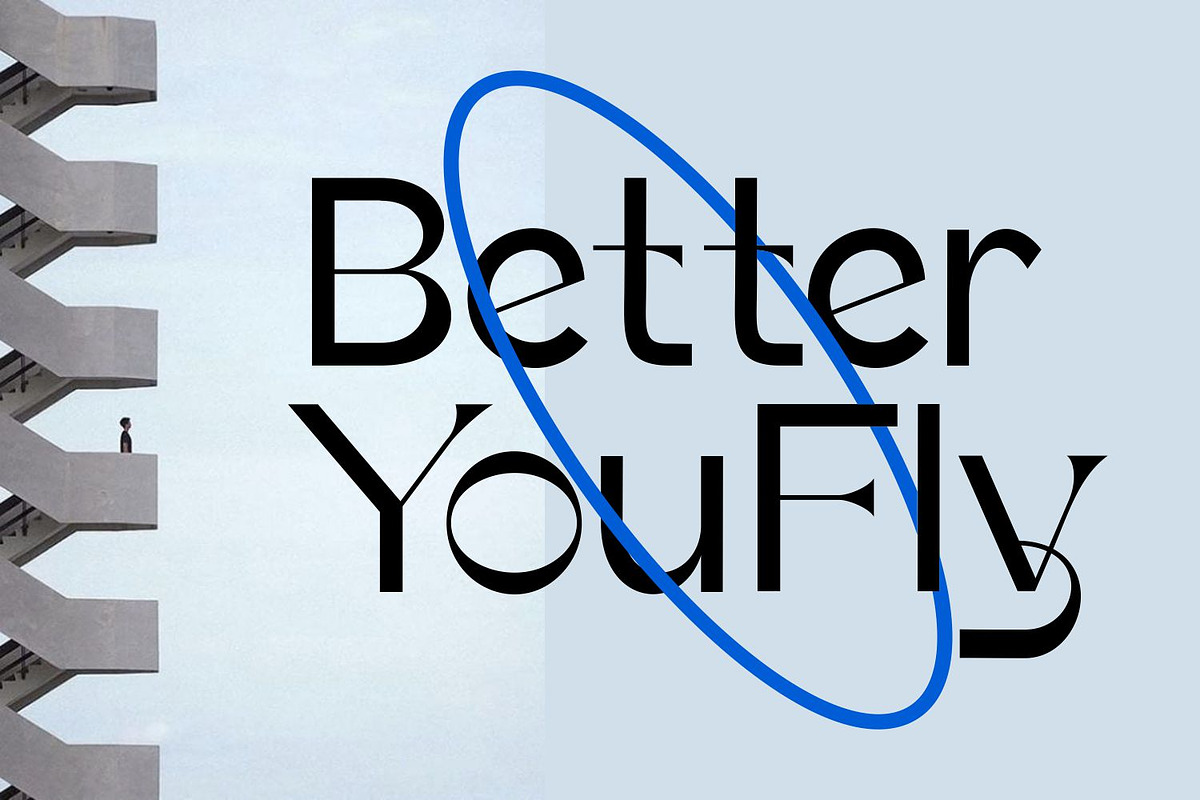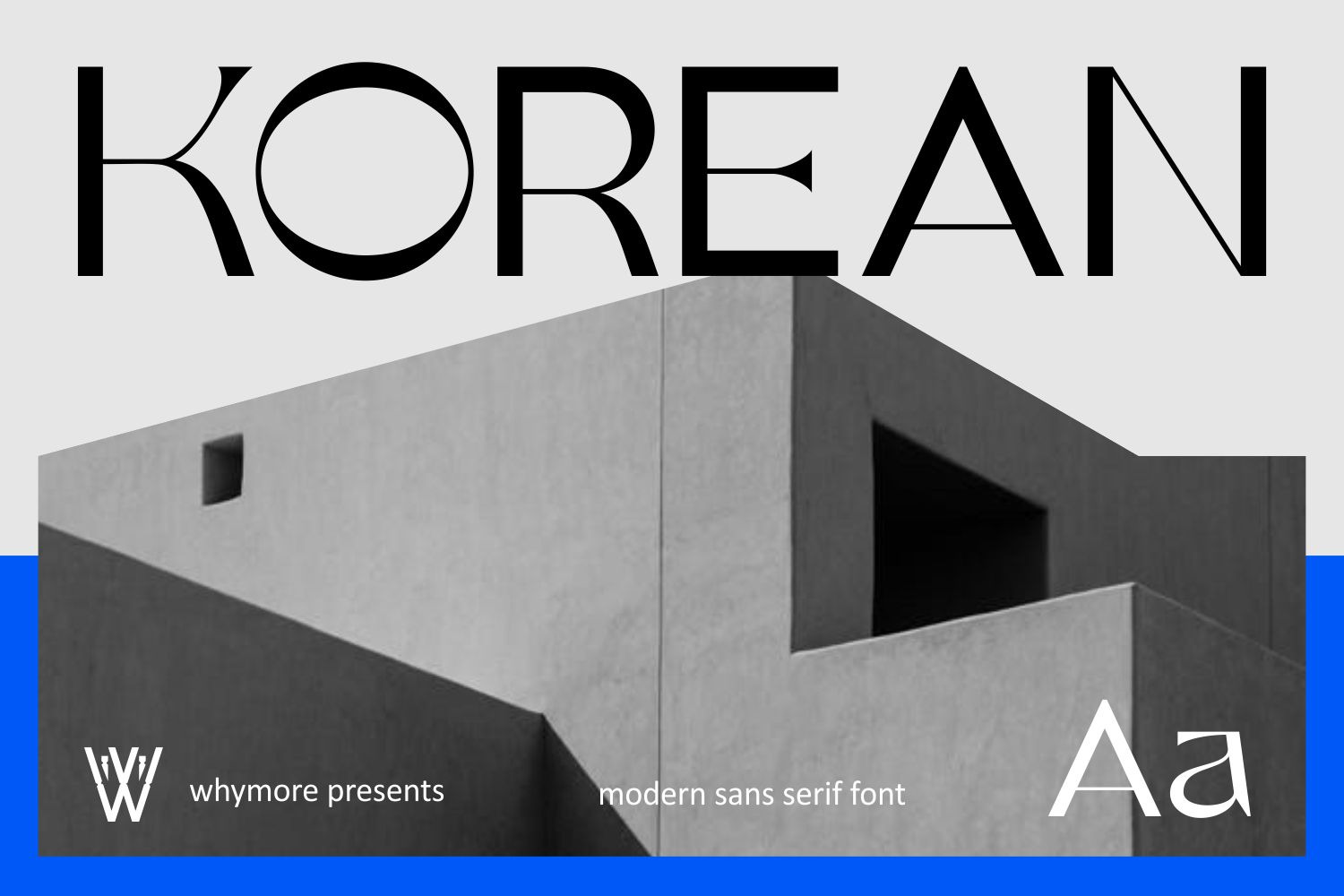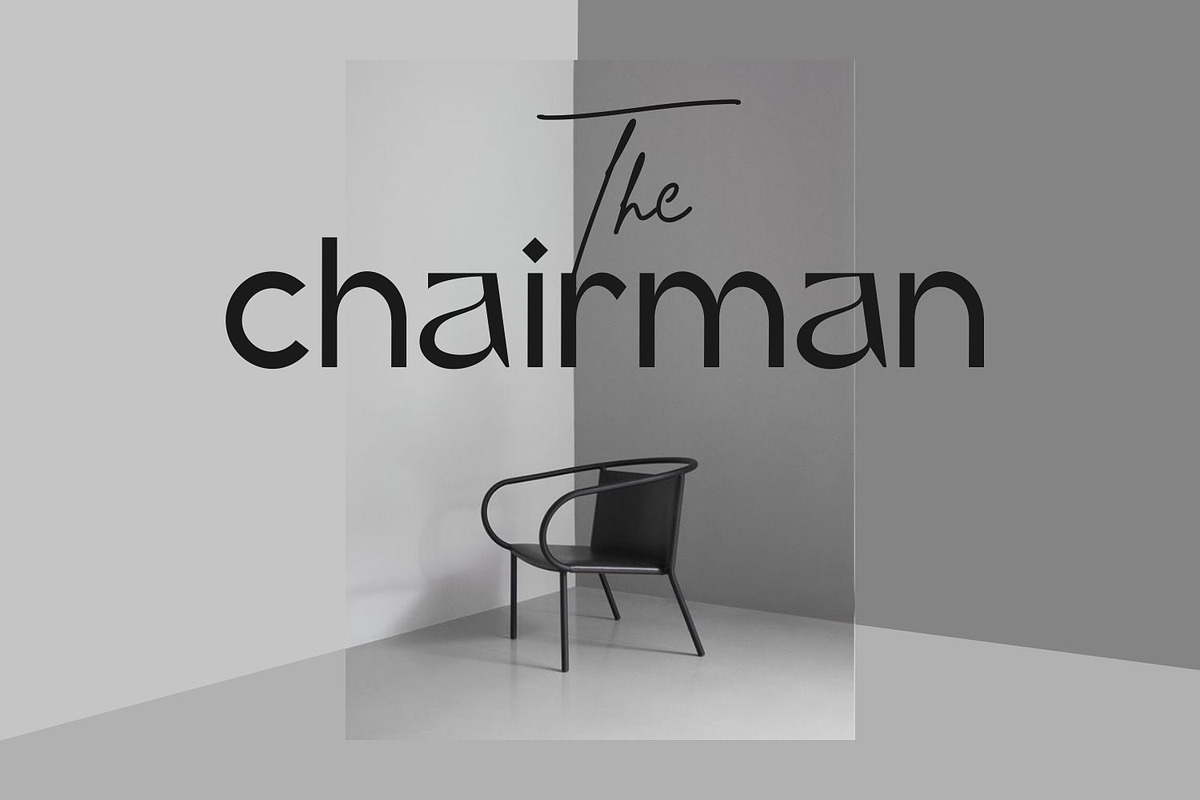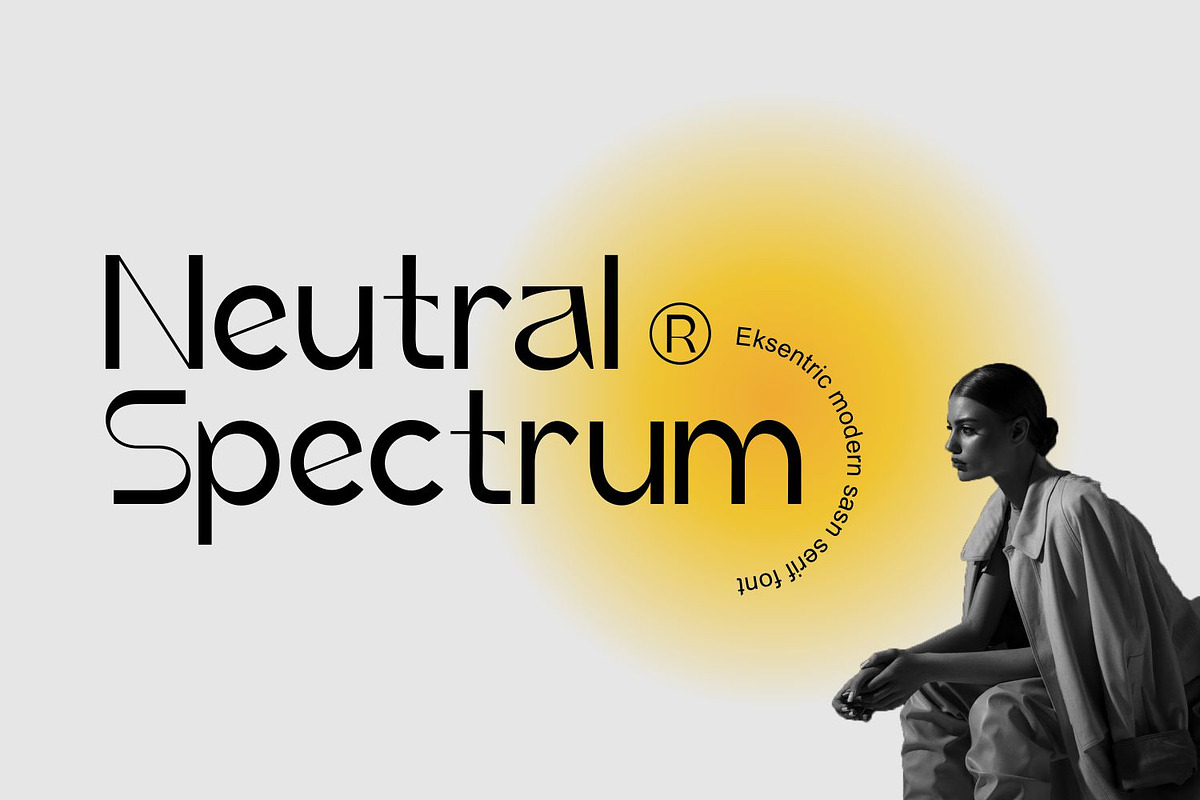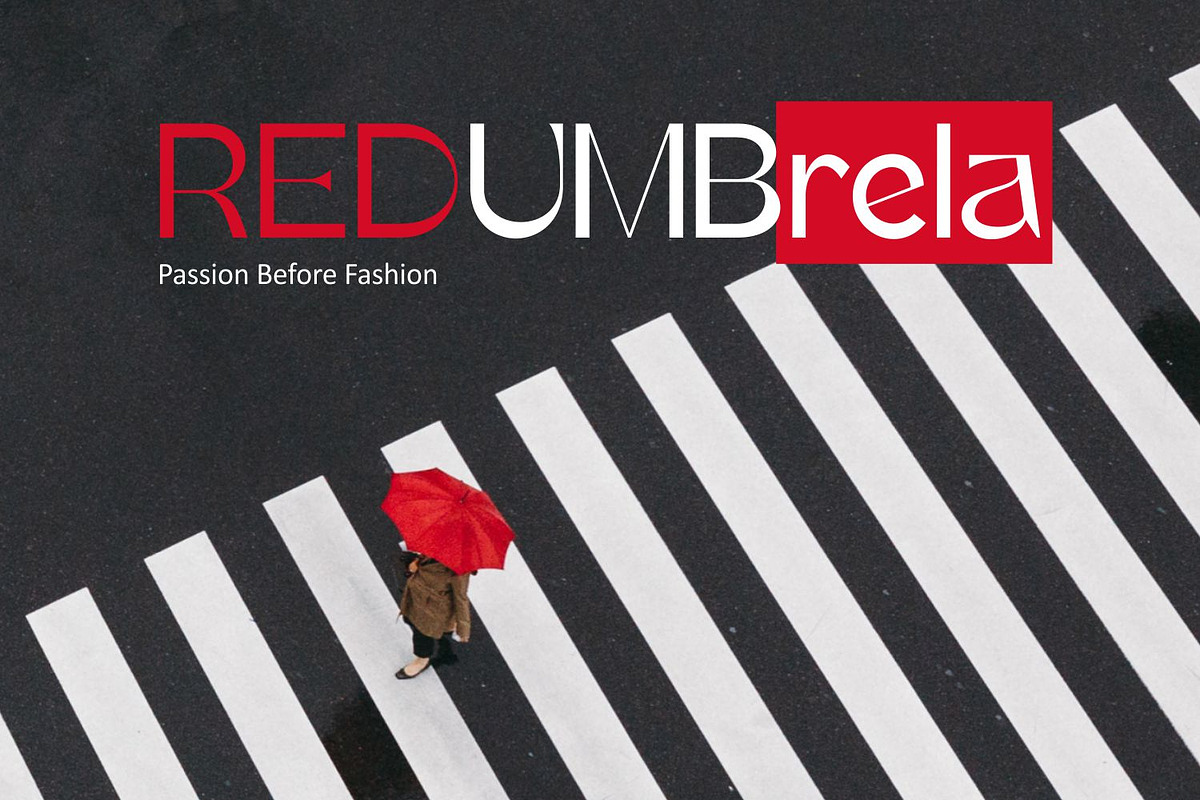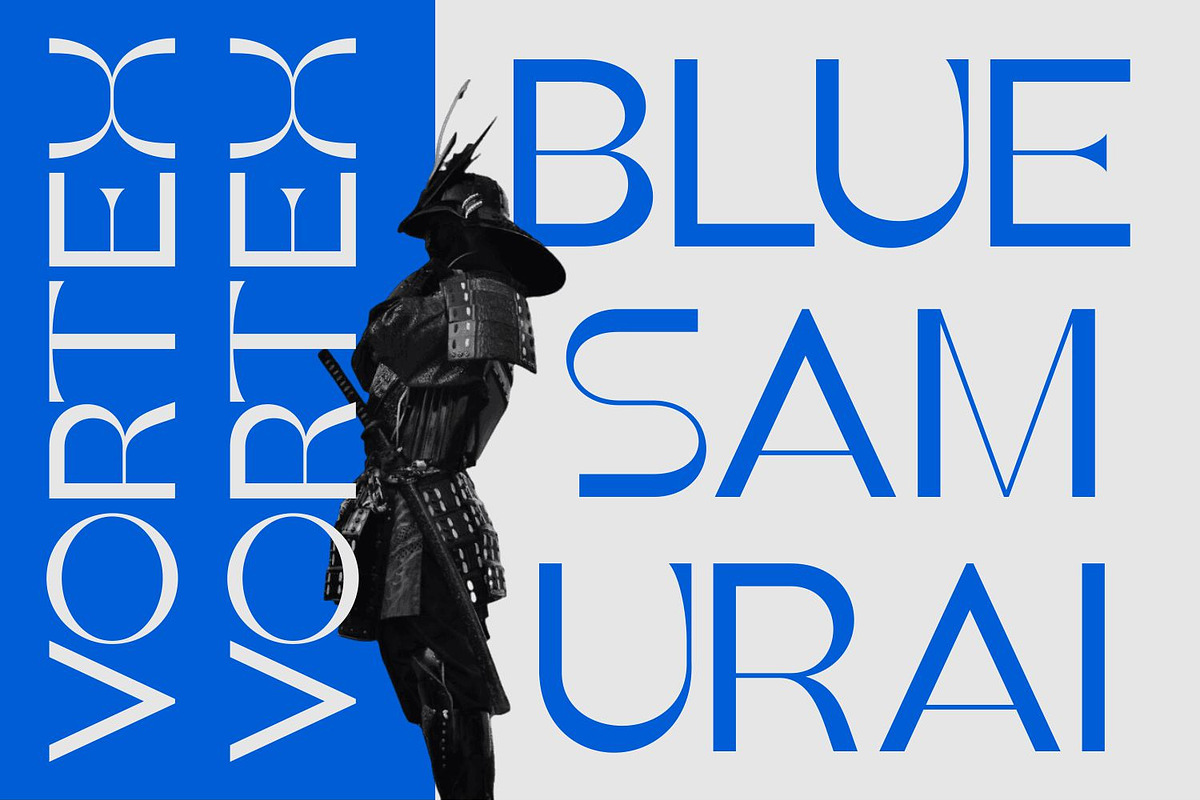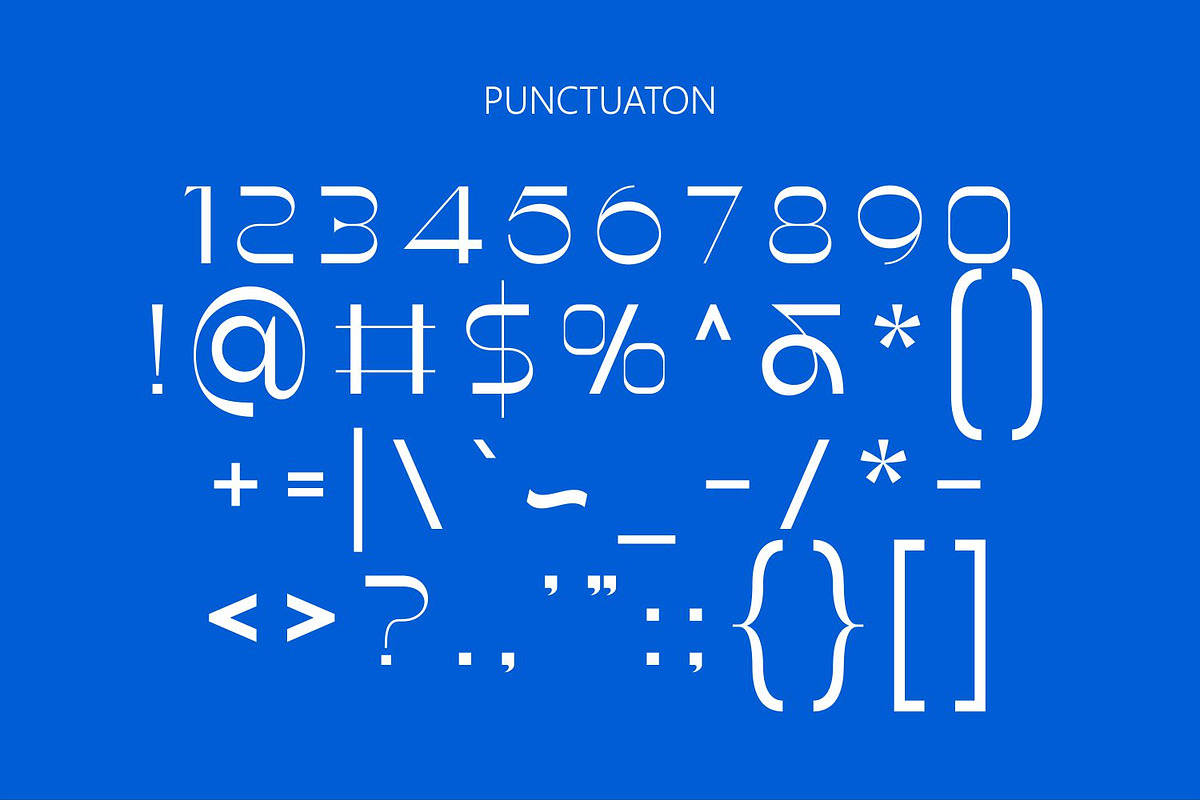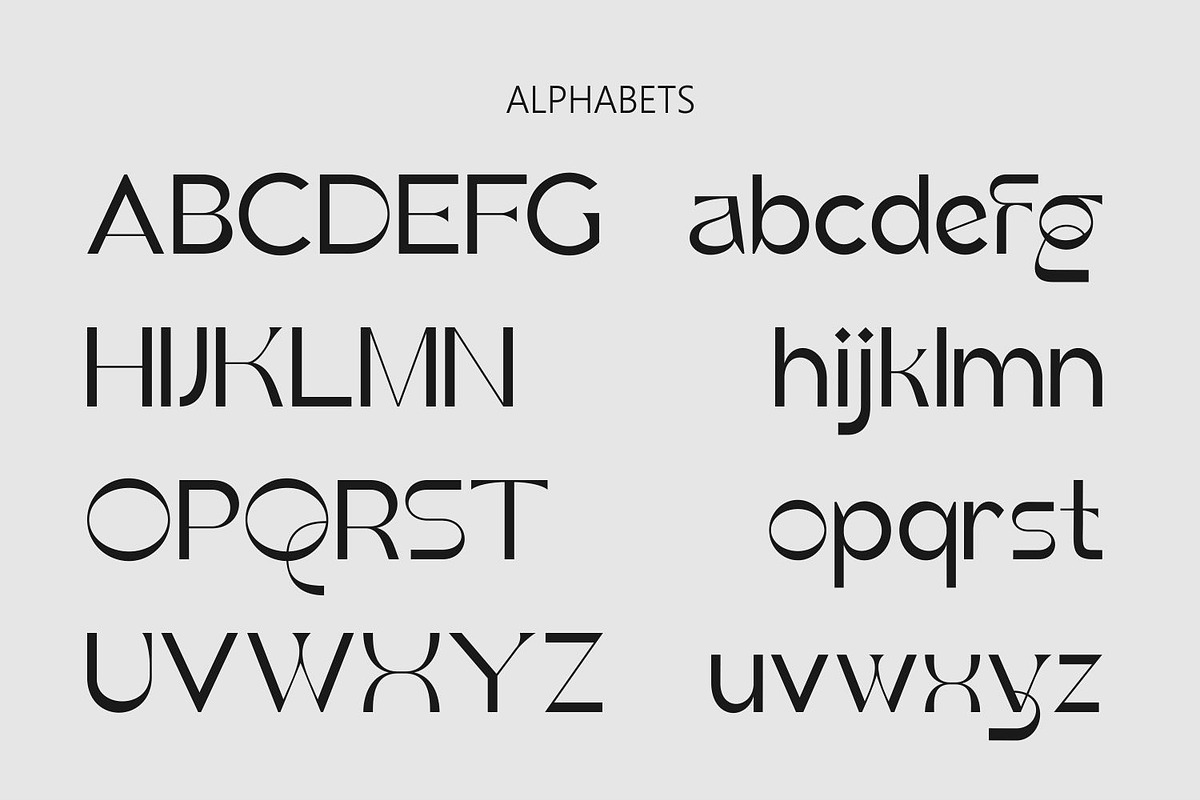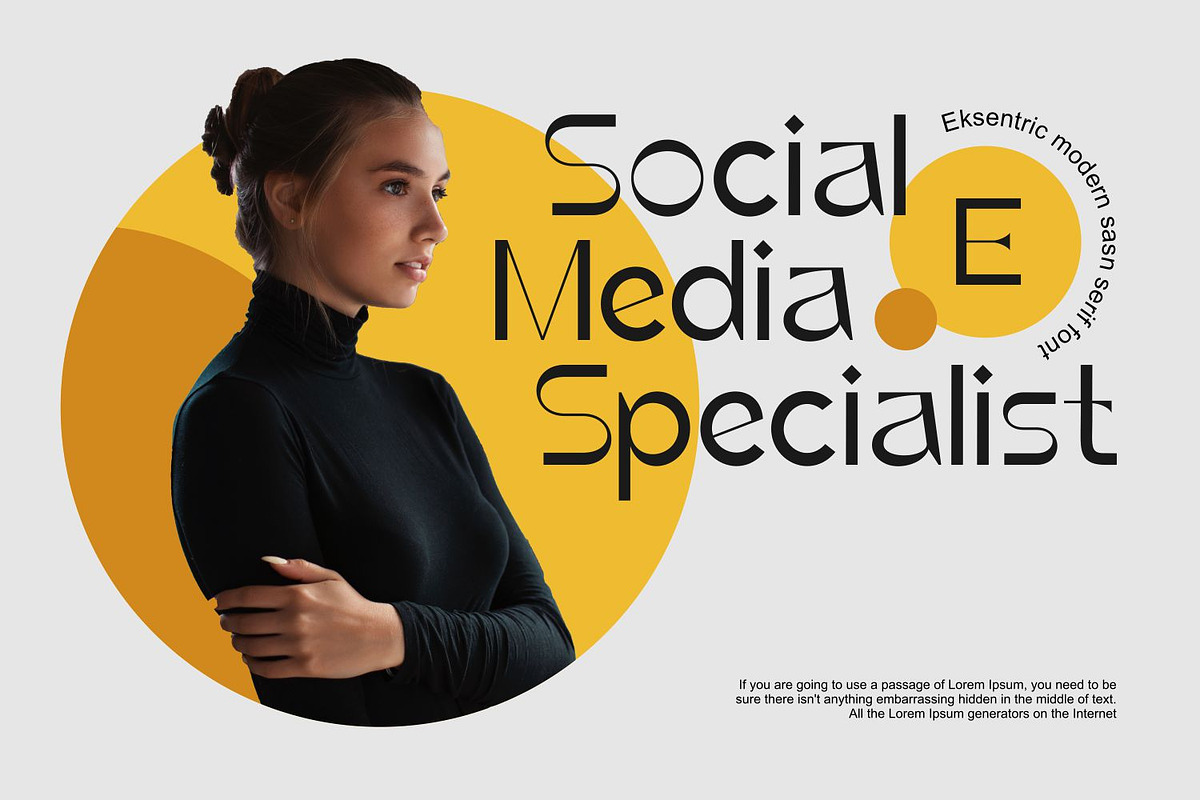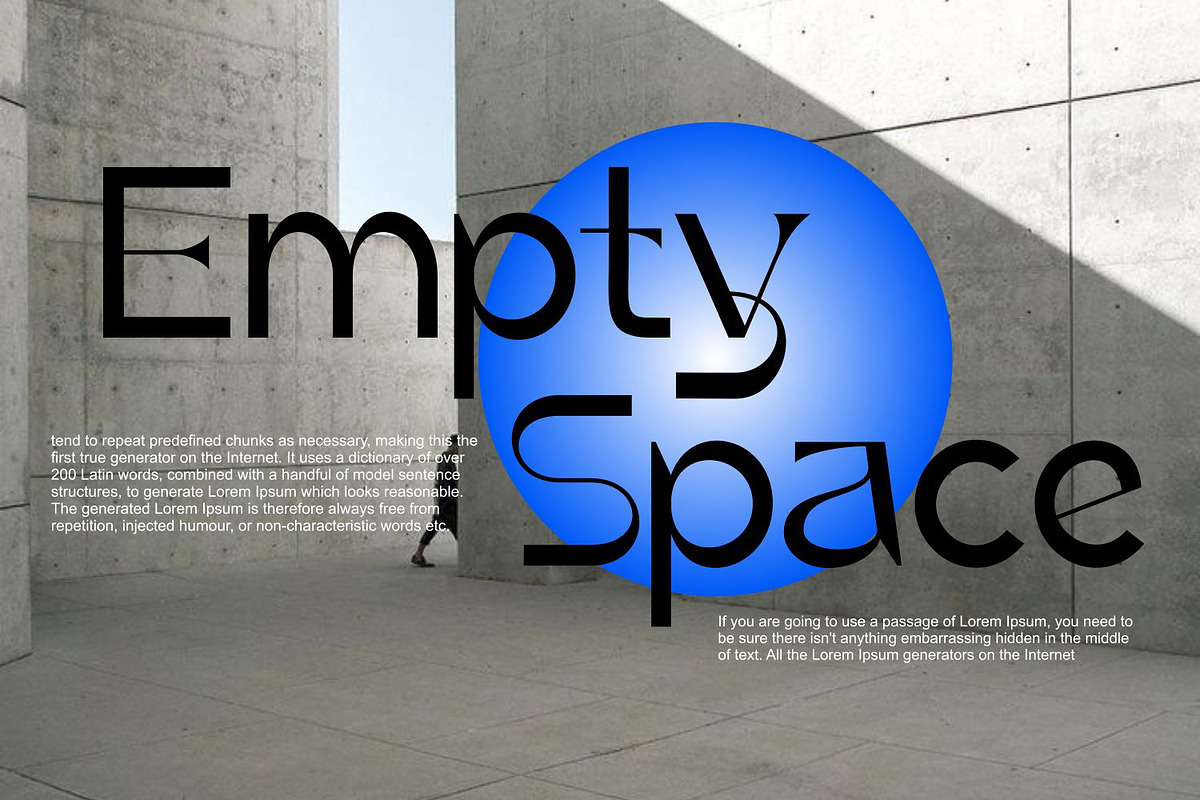
Korean | Modern Futuristic Fonts
The Korean Font is a modern and futuristic typeface that seamlessly blends traditional Korean calligraphy with contemporary design elements, resulting in a visually striking and innovative font. Inspired by the rich cultural heritage of Korea and the advancements of modern technology, this font features sleek lines, geometric shapes, and a sense of dynamic movement. Whether you’re designing for futuristic themes, technology-related projects, or innovative branding, the Korean Font adds a touch of cultural sophistication and forward-thinking style that captivates the viewer. Its versatile design makes it perfect for a wide range of digital and print applications, ensuring your designs stand out with a unique and futuristic flair.